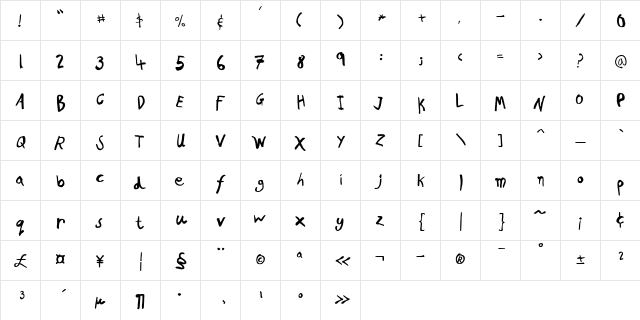
PF Kids Pro Grade Three Regular
| Foundry | Parachute? Worldwide |
| Designer | Alexandros Papalexis |
Design Context for PF Kids Pro Grade Three Typeface
PF Kids Pro Grade Three trades formality for fun, with bouncy, characterful letterforms that bring warmth and energy to any project.
Great for children's books, toy packaging, family event branding, and casual consumer-facing design.
Font Pairing: Pairs well with a rounded or humanist sans for body copy, maintaining the friendly tone without relying on PF Kids Pro Grade Three to carry extended reading.
Pro Tip: Avoid using PF Kids Pro Grade Three for long passages of text — it works best for headlines, labels, and short calls to action.